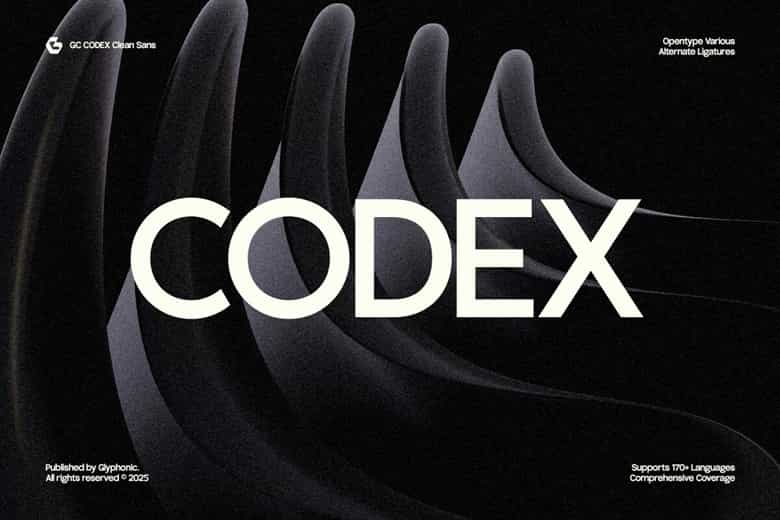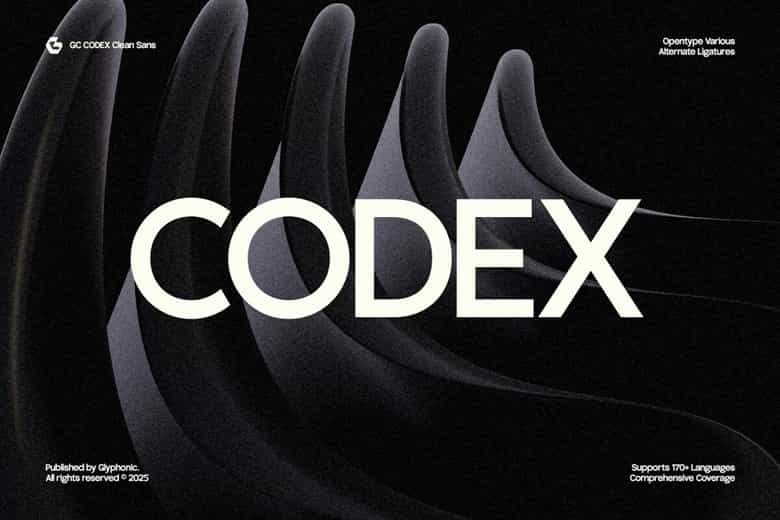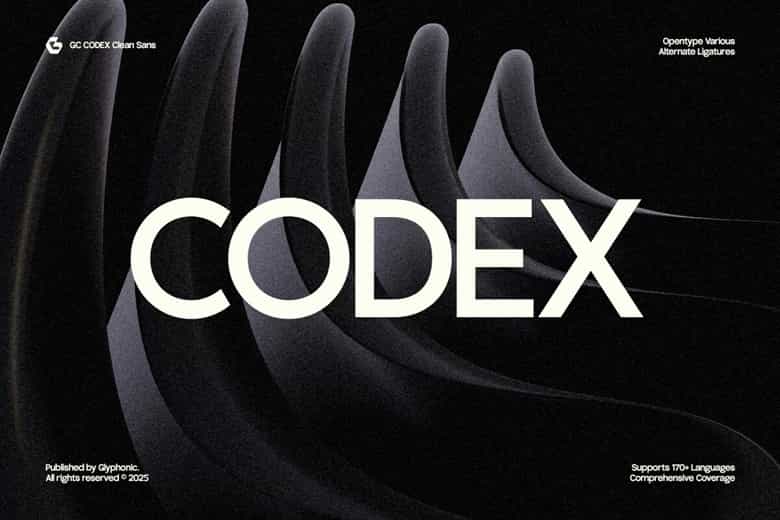
GC Codex Font
GC Codex is a geometric approach to a modern sans serif font and combines the precision of the geometric neo-grotesque with contemporary clarity. It is designed to be the typeface of balance and simplicity, tailored to designers inclined to line emphasized typography, it is an ideal headline or branding typeface, logo, digital user interface, packaging, and editorial settings. Clean construction and confident tone make it an obvious solution when high-impact visual communication is what is needed.